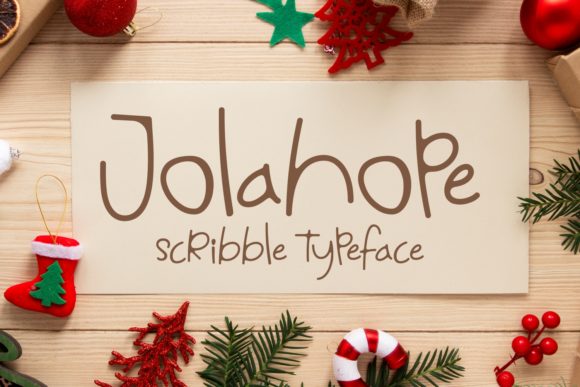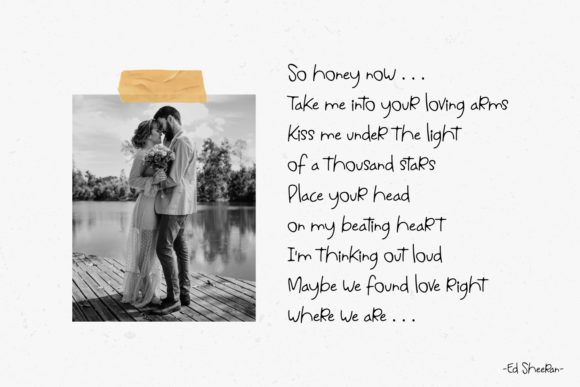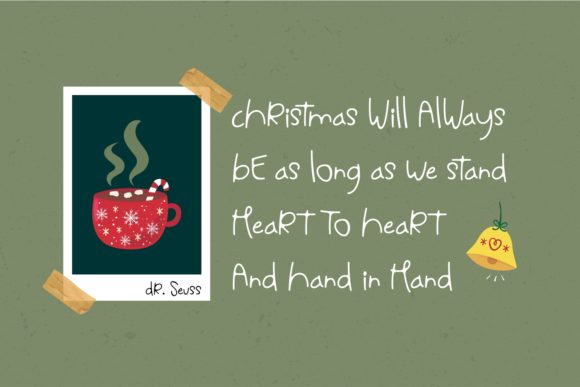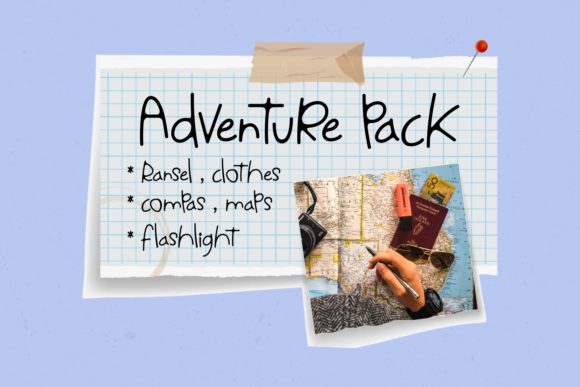
HomeScript FontsJolahope Font Script Fonts Jolahope Font FacebookXPinterestWhatsApp Jolahope Font Poster 2 Jolahope Font Poster 3 Jolahope Font Poster 4 About Jolahope Font Jolahope is a sweet and simple script font, perfectly emulating a kid’s handwriting. DOWNLOAD ON CREATIVE FABRICAThis font is sold and delivered by Creative Fabrica. Font Canyon may earn a commission if you buy through this link. People also explored Seafont Njebra Font Bright Font Jawstone Font Limited Edition Font Rebecca Fletcher Rhapsody Lovers Font Lemon Lime 387 0 TagsJolahope Font Previous articleRaydric Script + Shadow Outline FontNext articleMuthacoe Font LEAVE A REPLY Cancel reply Comment: Please enter your comment! Name:* Please enter your name here Email:* You have entered an incorrect email address! Please enter your email address here Website: Save my name, email, and website in this browser for the next time I comment. Personal Use Free Rosebirth Personal Use Free Read more about this font Mini Story Personal Use Free Read more about this font My Ugly Handwritting Personal Use Free Read more about this font Scarlove Personal Use Free Read more about this font BLOG Exploring Font Trends Shaping Communication in the Digital Era Fonts, like all design elements, are subject to trends. They play a crucial role in communicating a brand's personality,... Free vs Paid Fonts: Why Investing in Premium Fonts Is Worth It Best Fonts for YouTube Videos: Make Your Thumbnails Stand Out Top 7 Google Fonts Alternatives for Faster and Privacy-Friendly Web Design (2025)